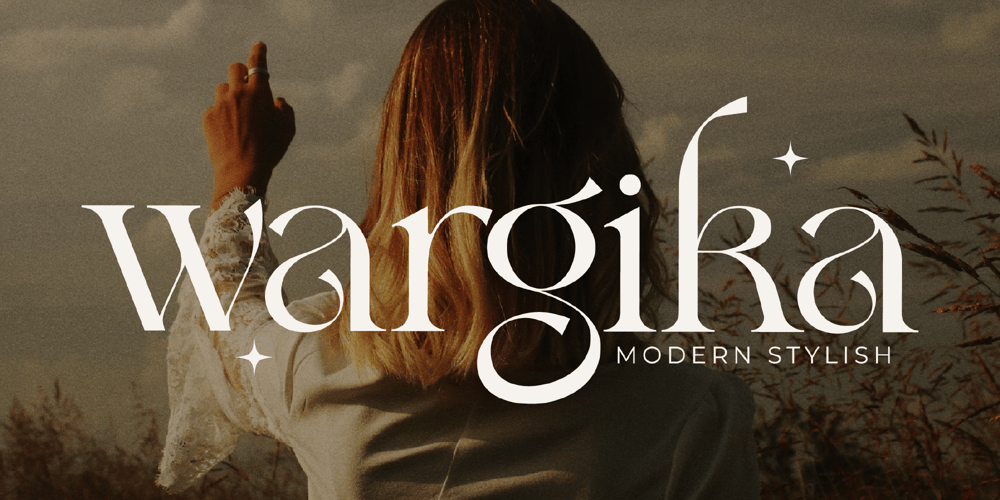
Wargika
Wargika Font Family was designed by Heru Utama Putra and published by Letterena Studios. Wargika contains 2 styles and family package options. Wargika is a modern and classic serif font with a unique style and modern look. This typeface is perfect for an elegant & luxury logo, book or movie title design, fashion brand, magazine, clothes, lettering, quotes, and so much more.